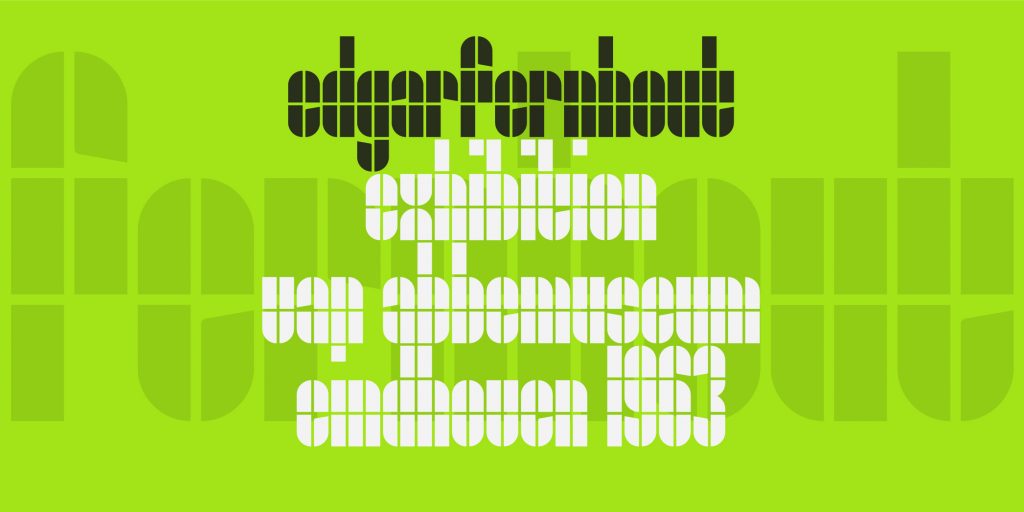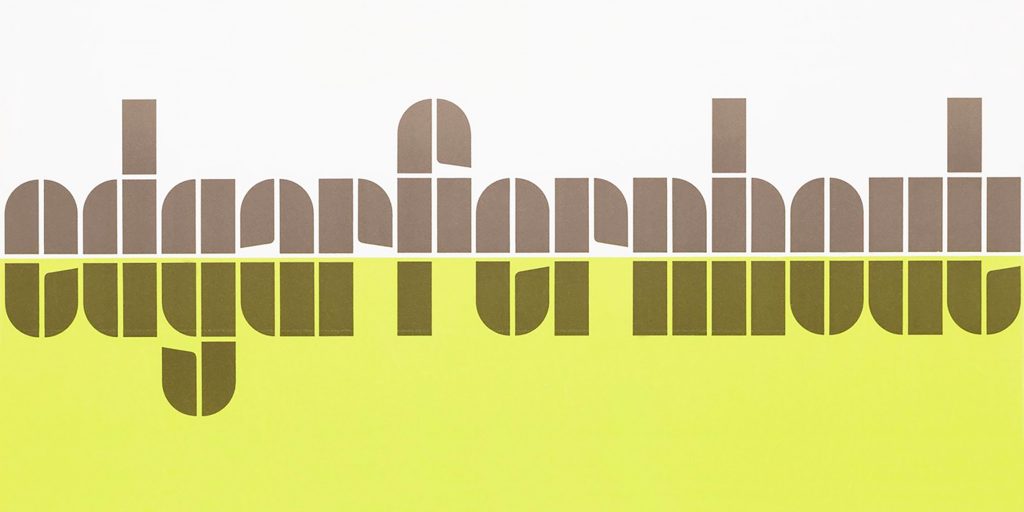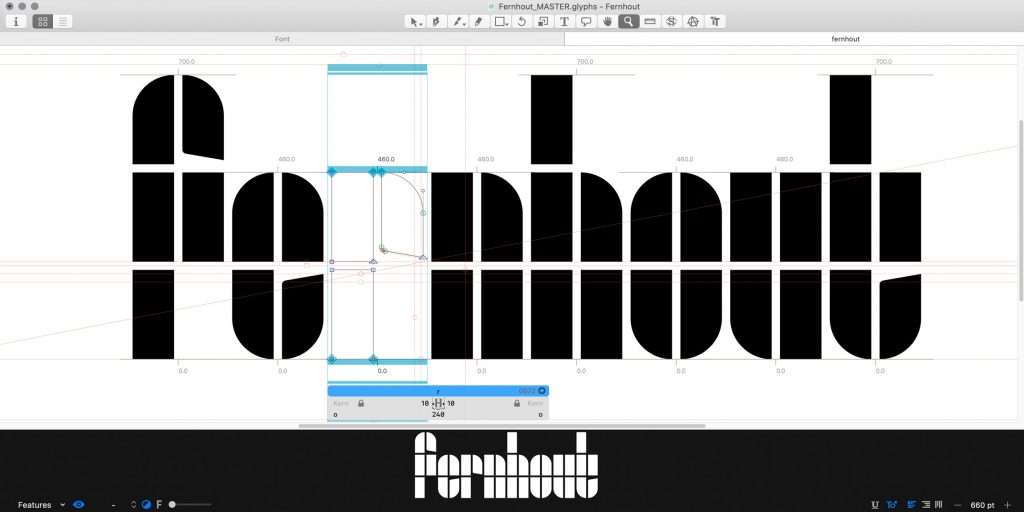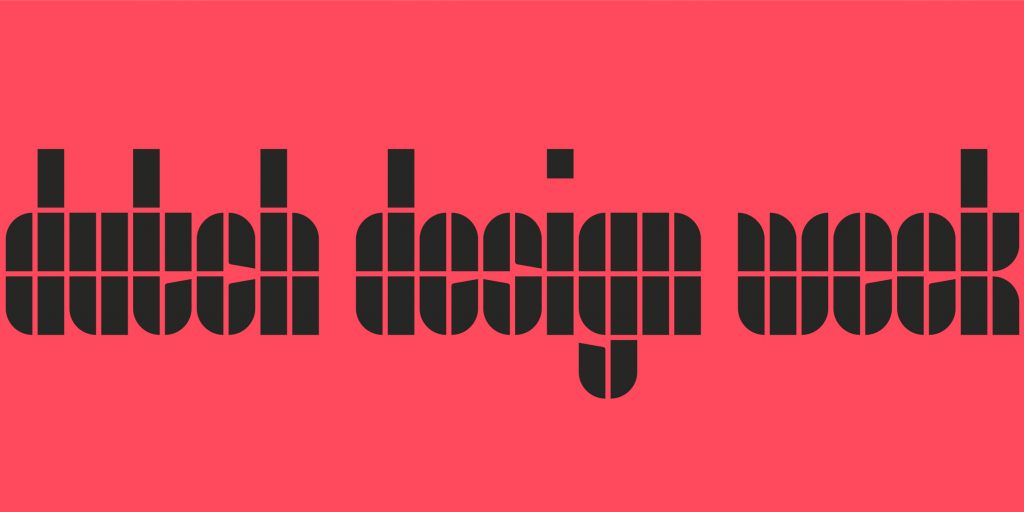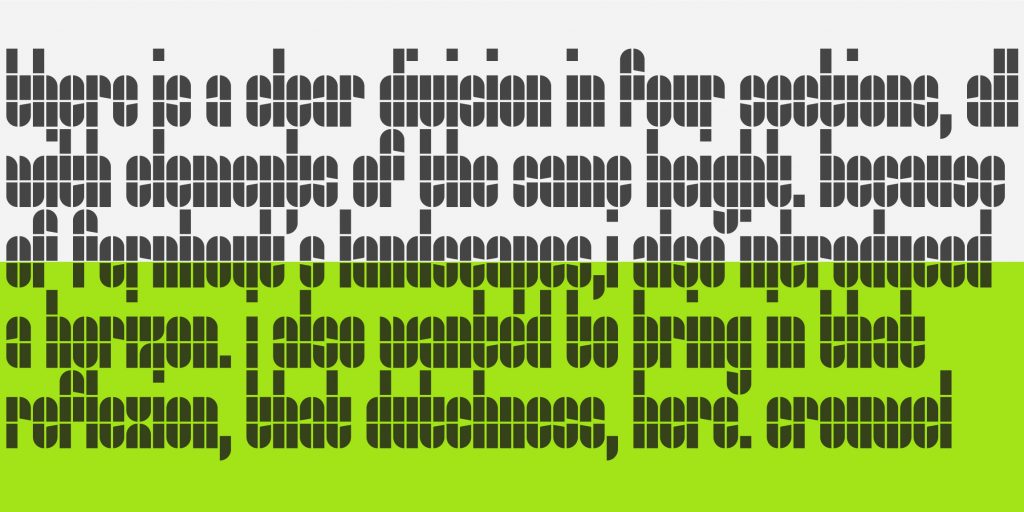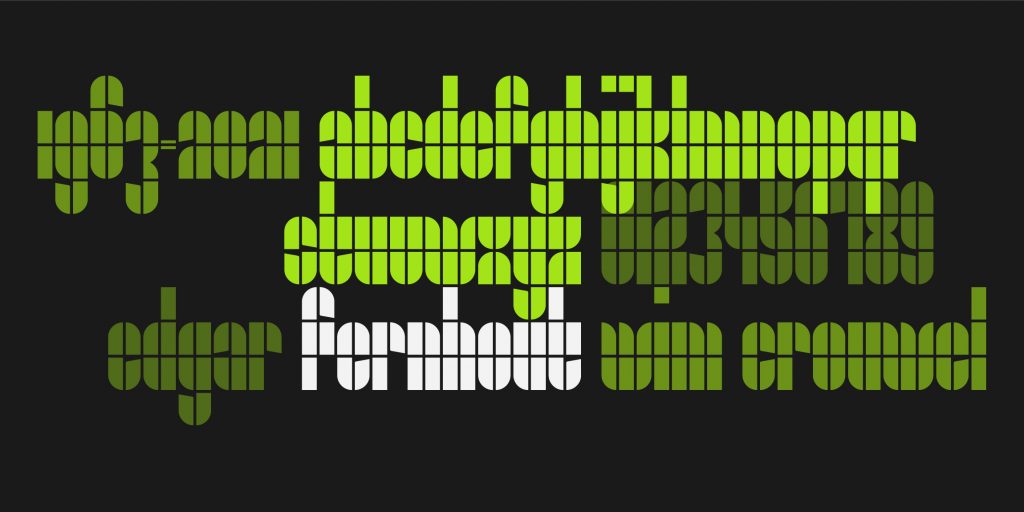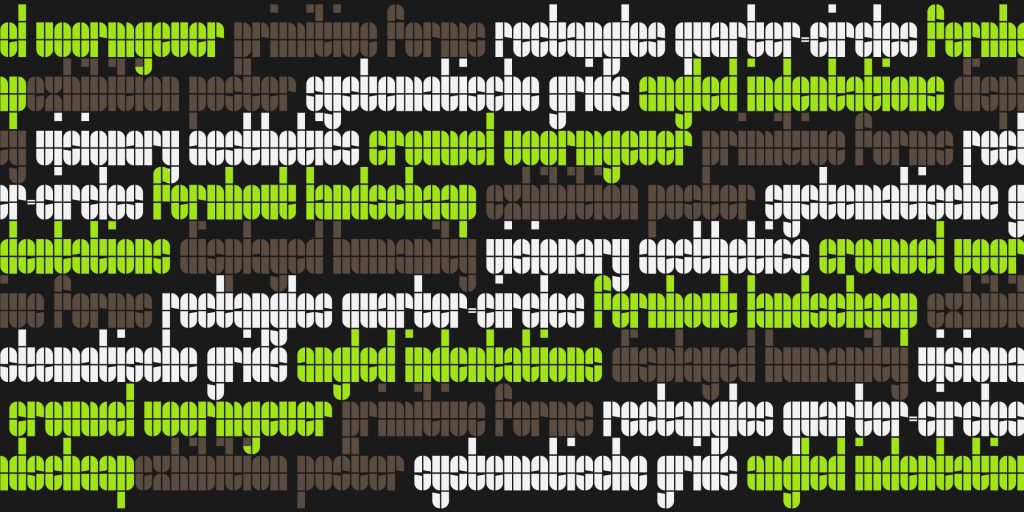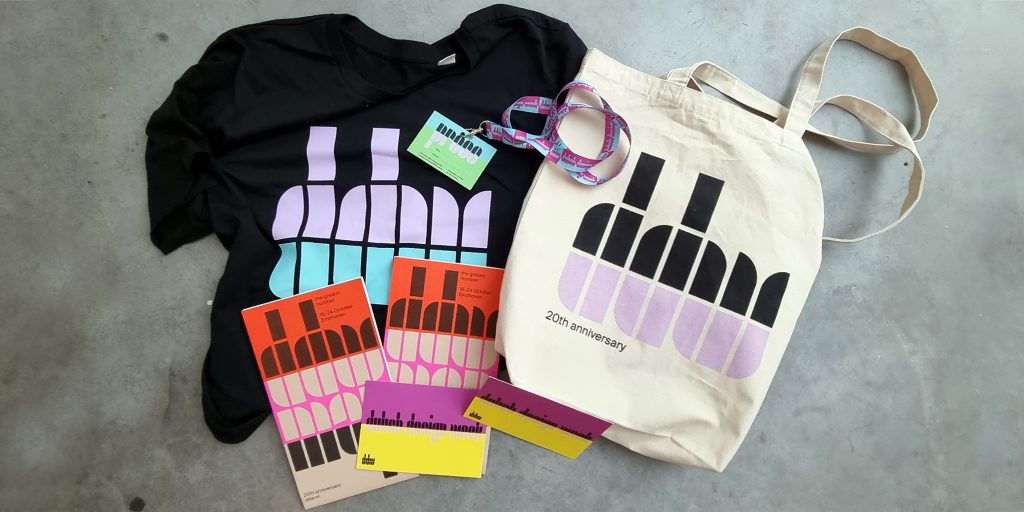
Name: Fernhout
Designers: Wim Crouwel, David Quay, and Stuart de Rozario in collaboration with Amsterdam design agency Thonik
Foundry: The Foundry Types
Release Date: November 2021
Back Story: Fernhout is based on a modular geometric lettering system created in 1963 by the legendary Dutch designer Wim Crouwel for Amsterdam’s Van Abbemuseum Edgar Fernhout exhibition poster and catalog. The 2021 type revival was commissioned for the biggest design event in Northern Europe, the Dutch Design Week (DDW), held in Eindhoven.
Thonik approached The Foundry Types and asked them to create a typeface, expanding Crouwel’s character set to include a-z in lowercase, plus figures and punctuation glyphs. The assignment was challenging. Quay says, “Crouwel never envisaged his designs to go on to be used as complete typefaces, and would often be taken aback to know people would want to use them in their own design projects.”
Why’s it called Fernhout? Three guesses. First two don’t count.
What are its distinguishing characteristics? The alphabet consists of a simple rectangular block system, two columns wide and four oblongs tall, plus circular segments and angled indentations. A horizontal line introduced by Crouwel himself in the original letterforms runs through the center of all the letters as a direct reference to Fernhout’s landscape paintings. Crouwel’s grid allowed many glyphs to practically design themselves, but complex glyphs with diagonal strokes such as k, s, x, z, 2, 4, 5, and 7 needed to be stripped back and simplified.
The designers encountered a few dilemmas along the way. For example, what should the dots above ‘i and j’ look like? What shapes would work as readable punctuation? Junctions within the center section of the numerals 3 and 8 were also tricky to achieve. Quay and de Rozario added a square element along with a double quarter-circle to their toolkit of shapes, allowing all of these glyphs to be easily recognizable while staying true to Crouwel’s original concept.
Thomas Widdershoven, co-founder of Thonik, says, “Crouwel loved monospaced letters, so the fact that Edgar Fernhout’s name doesn’t contain w, m, l, or i must have appealed to him. We had to tackle those letters and tried to finish the game while playing by the same rules. We opted for all lowercase characters since they feel more democratic.”
What should I use it for? Fernhout is a special-occasion typeface—its elemental forms come in a single weight with a limited character set. Mainly intended for use as display, it can be deployed for branding or editorial design situations where its dramatic appearance can be allowed to overtake legibility. (It’s readable, but you have to give it a sec.)
What other typefaces do you like to pair it with? Fernhout functions as a graphic element almost more than as a typeface. Try a neutral, legible sans serif typeface such as Foundry Unie, to be launched in early 2022. (Need a sneak peek in the meantime? It’s currently the primary typeface on the Foundry Type’s website.) Graphik is another good choice, simple but never boring.